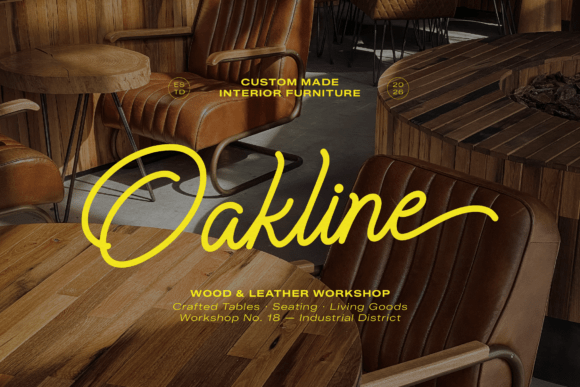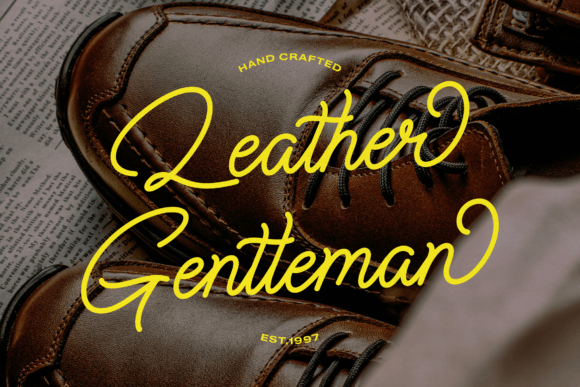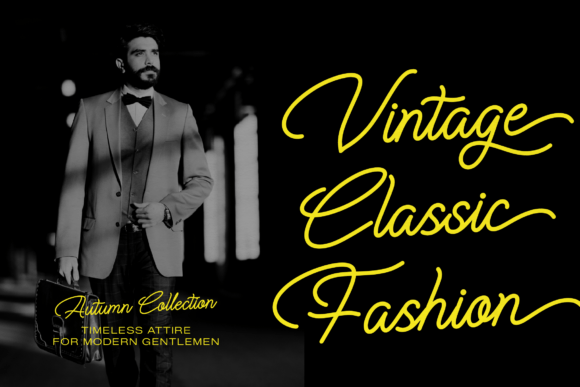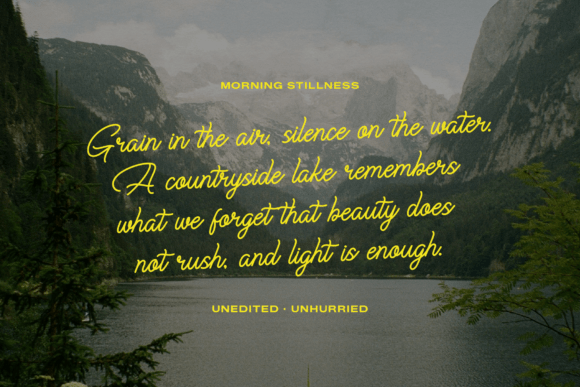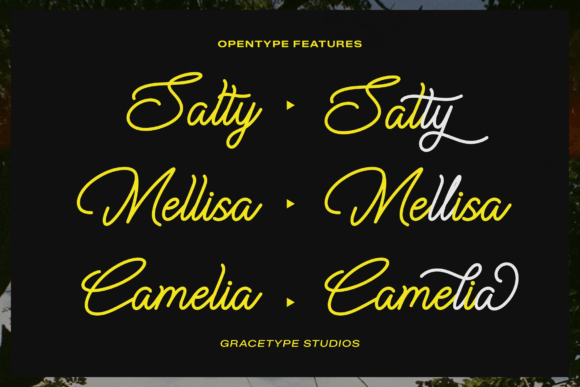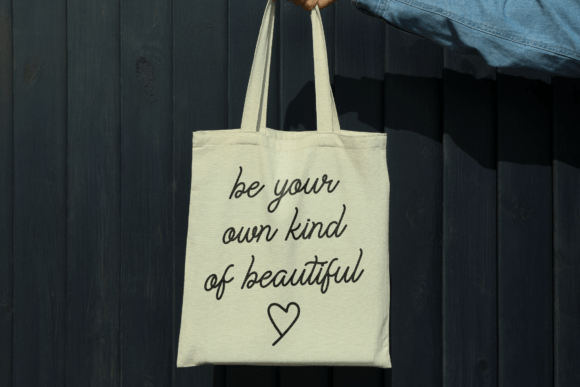
Introduction to Cauloid Font
Cauloid is a masterclass in fluid motion, a monoline script that captures the essence of a coastal breeze and effortless sophistication.
Designed by Gracetype Studios, this typeface features consistent stroke thickness that gives it a clean, modern edge while maintaining the rhythmic soul of traditional handwriting The Cauloid font is characterized by its sweeping loops and elegant ligatures, making it an ideal choice for brands that want to communicate friendliness with a high-end finish.